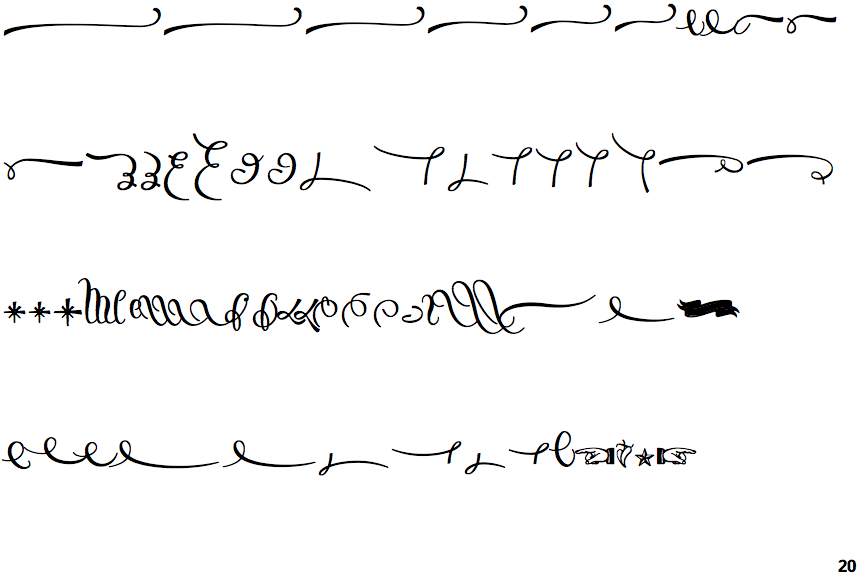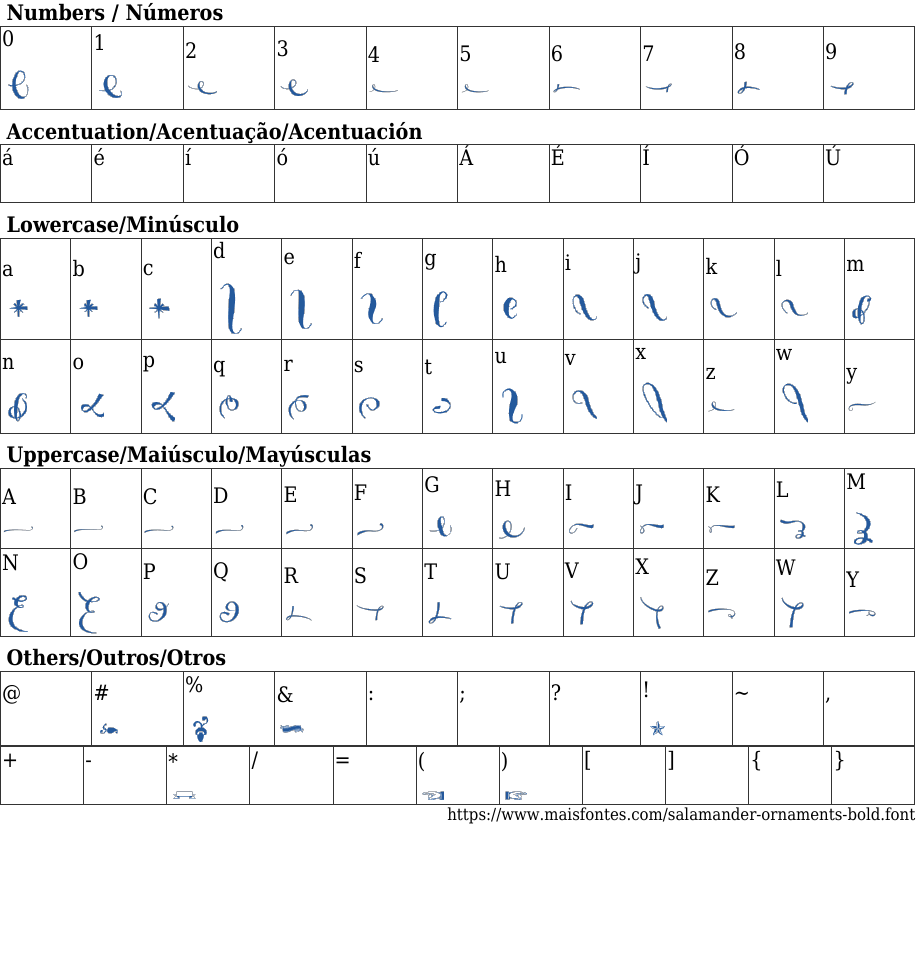
Salamander Ornaments Font . All | fonts | vector fonts. Click on swash, contextual or stylistic alternates in any. Click on swash, contextual or. Salamander ornaments font family series mainly provide regular and other font styles. Salamander / salamander ornaments bold. That's why we've selected the font family salamander ornaments to choose an alternative font to your title or content. Home / fonts / salamander / salamander ornaments bold. Click on swash, contextual or stylistic alternates in any. Salamander is a playful and agile script family of two weights and matching ornament sets. Salamander is a playful and agile script family of two weights and matching ornament sets. Salamander is a playful and agile script family of two weights and matching ornament sets. Salamander is a playful and agile script family of two weights and matching ornament sets.
Click on swash, contextual or stylistic alternates in any. Click on swash, contextual or. Salamander is a playful and agile script family of two weights and matching ornament sets. Click on swash, contextual or stylistic alternates in any. All | fonts | vector fonts. Home / fonts / salamander / salamander ornaments bold. Click on swash, contextual or stylistic alternates in any. That's why we've selected the font family salamander ornaments to choose an alternative font to your title or content. Salamander is a playful and agile script family of two weights and matching ornament sets. Salamander is a playful and agile script family of two weights and matching ornament sets.
Salamander Ornaments Font All | fonts | vector fonts. Click on swash, contextual or stylistic alternates in any. Salamander ornaments font family series mainly provide regular and other font styles. Click on swash, contextual or. Home / fonts / salamander / salamander ornaments bold. All | fonts | vector fonts. Click on swash, contextual or stylistic alternates in any. Salamander is a playful and agile script family of two weights and matching ornament sets. Salamander is a playful and agile script family of two weights and matching ornament sets. Click on swash, contextual or stylistic alternates in any. Salamander is a playful and agile script family of two weights and matching ornament sets. Salamander / salamander ornaments bold. Salamander is a playful and agile script family of two weights and matching ornament sets. That's why we've selected the font family salamander ornaments to choose an alternative font to your title or content.
Ornaments Font by goodigital · Creative Fabrica Salamander Ornaments Font That's why we've selected the font family salamander ornaments to choose an alternative font to your title or content. Salamander is a playful and agile script family of two weights and matching ornament sets. Salamander is a playful and agile script family of two weights and matching ornament sets. Click on swash, contextual or stylistic alternates in any. Click on. Salamander Ornaments Font.
SalamanderOrnaments шрифт Salamander Ornaments Font All | fonts | vector fonts. Salamander is a playful and agile script family of two weights and matching ornament sets. Salamander ornaments font family series mainly provide regular and other font styles. Salamander / salamander ornaments bold. Click on swash, contextual or stylistic alternates in any. That's why we've selected the font family salamander ornaments to choose an alternative. Salamander Ornaments Font.
Salamander Script Embroidery Font Pack Home format embroidery font Salamander Ornaments Font Salamander is a playful and agile script family of two weights and matching ornament sets. Home / fonts / salamander / salamander ornaments bold. That's why we've selected the font family salamander ornaments to choose an alternative font to your title or content. Salamander is a playful and agile script family of two weights and matching ornament sets. Salamander is. Salamander Ornaments Font.
Ornaments Font Download Salamander Ornaments Font Click on swash, contextual or stylistic alternates in any. Salamander is a playful and agile script family of two weights and matching ornament sets. Salamander / salamander ornaments bold. Salamander is a playful and agile script family of two weights and matching. Salamander Ornaments Font.
Salamander Script Regular Fonts Salamander Ornaments Font Click on swash, contextual or. Salamander / salamander ornaments bold. Click on swash, contextual or stylistic alternates in any. All | fonts | vector fonts. Salamander ornaments font family series mainly provide regular and other font styles. Home / fonts / salamander / salamander ornaments bold. Click on swash, contextual or stylistic alternates in any. Salamander is a playful and. Salamander Ornaments Font.
Salamander is a playful and agile script family of two weights and Salamander Ornaments Font Salamander is a playful and agile script family of two weights and matching ornament sets. Salamander is a playful and agile script family of two weights and matching ornament sets. Click on swash, contextual or stylistic alternates in any. Salamander is a playful and agile script family of two weights and matching ornament sets. Salamander is a playful and agile. Salamander Ornaments Font.
Salamander Script Font Download For Free, View Sample Text, Rating Salamander Ornaments Font Salamander is a playful and agile script family of two weights and matching ornament sets. Salamander is a playful and agile script family of two weights and matching ornament sets. Click on swash, contextual or stylistic alternates in any. Salamander / salamander ornaments bold. That's why we've selected the font family salamander ornaments to choose an alternative font to your. Salamander Ornaments Font.
Salamander Font Fonts Hut Salamander Ornaments Font Salamander ornaments font family series mainly provide regular and other font styles. Click on swash, contextual or stylistic alternates in any. Salamander / salamander ornaments bold. Salamander is a playful and agile script family of two weights and matching ornament sets. Click on swash, contextual or stylistic alternates in any. Click. Salamander Ornaments Font.